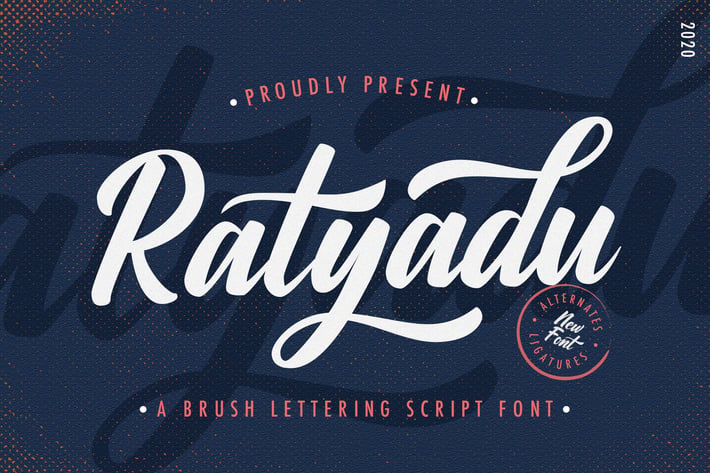
Ratyadu - Vintage & Retro Bold Script Font
Introducing Ratyadu - Vintage & Retro Bold Script Font
Ratyadu is a strong and bold script font. It is curved, rounded, and has an unique vintage style, that is perfect for branding. Add it to your most creative ideas and notice how it makes them come alive!
- Stylistic Alternates
Ratyadu is a strong and bold script font. It is curved, rounded, and has an unique vintage style, that is perfect for branding. Add it to your most creative ideas and notice how it makes them come alive!
- Stylistic Alternates